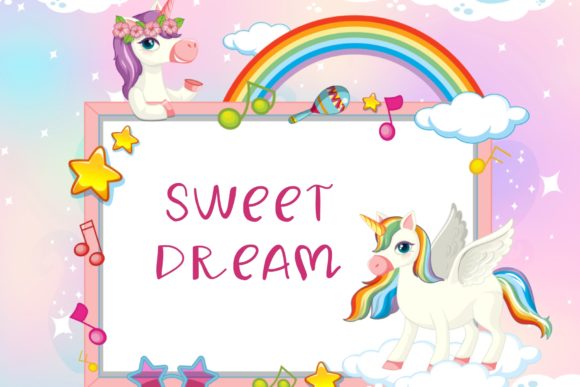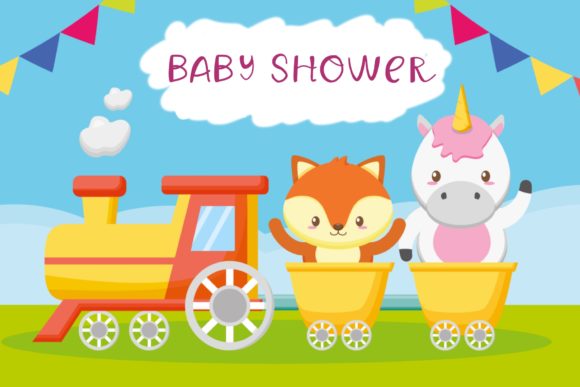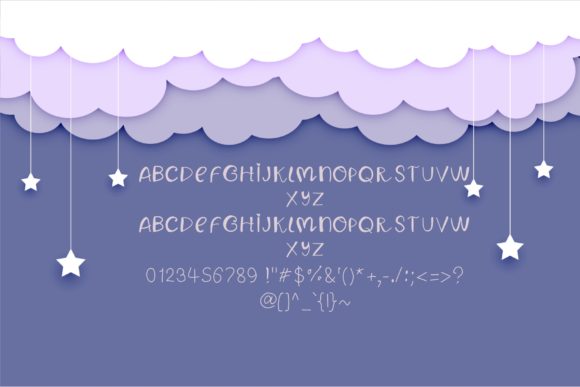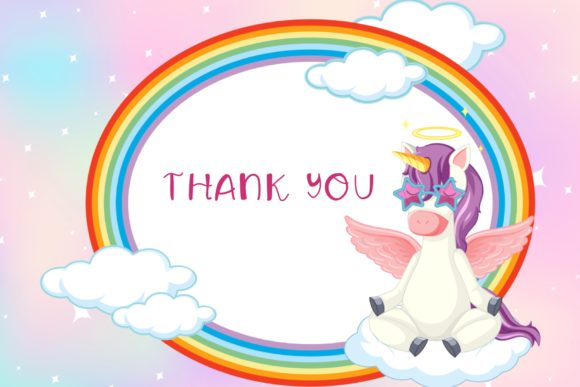
The Magical World of Cutie Unicorn Font
Have you ever been working on a design project, and suddenly, it feels like something is missing? You’re not quite sure what it is, but you know it’s not quite right. I’ve been there too! I was working on a whimsical stationery set for a client, and I just couldn’t find the perfect font to bring it all together. That’s when I stumbled upon the Cutie Unicorn Font. It’s an adorable, quirky handwritten font that adds an incredibly joyful touch to any design.
My Love Affair with Cutie Unicorn
As soon as I saw Cutie Unicorn, I knew I was in love! Its playful style and charming personality won me over. I started experimenting with it, and I was amazed at how versatile it was. From eye-catching social media posts to beautiful stationery art, Cutie Unicorn seemed to bring a smile to everyone’s face.
- ✨ Adorable and quirky handwritten style
- 🎉 Perfect for designs that need a playful touch
- 💻 Works beautifully with OpenType features and glyphs
While Cutie Unicorn is an amazing font, it’s not perfect. Here are a few things to keep in mind:
- 🤔 Some letters may appear a bit inconsistent in size, which can add to its charm but might not be suitable for all designs.
- ⚠️ It might not be the best choice for body text or long paragraphs, as it’s more suited for headlines and titles.
The Backstory of Cutie Unicorn
Legend has it that Cutie Unicorn was created by a team of designers who wanted to bring a little joy and magic into the world of typography. They drew inspiration from childhood wonder, mythical creatures, and the beauty of handwritten letters. The result is a font that’s both playful and charming.
Q: What makes Cutie Unicorn so special?
A: Cutie Unicorn’s unique blend of playfulness and charm makes it perfect for designs that need a touch of whimsy.
Q: Is Cutie Unicorn suitable for body text?
A: While Cutie Unicorn is highly legible, it’s more suited for headlines and titles. For body text, you may want to choose a more traditional font.